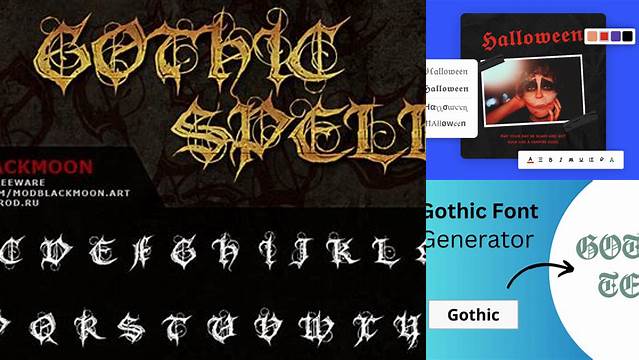
Free Gothic Font Generator: Design Unique Fonts
Are you a fan of the dark, elegant, and mysterious Gothic style? Do you want to add a touch of Gothic flair to your designs, whether it's for your website, logo, invitations, or social media graphics? If so, you've come to the right place! In this article, we'll delve into the world of Gothic font generators, exploring how you can create your own unique Gothic fonts for free. We'll discuss the characteristics of Gothic fonts, the benefits of using a font generator, and the best free Gothic font generators available online. So, get ready to unleash your creativity and design some stunning Gothic fonts!
What are Gothic Fonts?
Before we dive into the world of free font generators, let's first understand what exactly Gothic fonts are. Gothic fonts, also known as blackletter fonts, are a family of typefaces characterized by their distinctive, ornate, and often dramatic appearance. Originating in Europe during the Middle Ages, Gothic fonts were widely used for religious texts, illuminated manuscripts, and formal documents. They exude a sense of history, tradition, and sophistication, making them a popular choice for designs that aim to convey elegance, mystery, or a vintage feel.
Some key characteristics of Gothic fonts include:
- Sharp, angular strokes: Gothic fonts feature sharp, angular letterforms with strong contrasts between thick and thin strokes.
- Elaborate ornamentation: Many Gothic fonts incorporate intricate details and flourishes, adding to their ornate and decorative aesthetic.
- Tall, narrow letterforms: Gothic letters tend to be tall and narrow, creating a sense of verticality and formality.
- Blackletter appearance: The term "blackletter" refers to the dense, dark appearance of Gothic fonts, which is due to the close spacing and heavy strokes of the letterforms.
Gothic fonts come in various styles, ranging from the classic Textura and Rotunda to the more modern and stylized variations. Whether you're looking for a traditional Gothic font for a historical project or a contemporary Gothic font for a cutting-edge design, there's a Gothic font out there to suit your needs.
Why Use a Free Font Generator?
Now that we have a good understanding of what Gothic fonts are, let's discuss why you might want to use a free font generator to create your own. There are several compelling reasons to consider this approach:
- Uniqueness: With a font generator, you can create fonts that are truly one-of-a-kind. You're not limited to the pre-existing fonts available in font libraries. You can experiment with different styles, weights, and embellishments to craft a font that perfectly reflects your vision.
- Customization: Font generators offer a high degree of customization. You can tweak every aspect of your font, from the letterforms and spacing to the serifs and swashes. This level of control allows you to create fonts that are tailored to your specific design needs.
- Cost-effectiveness: Hiring a professional font designer can be expensive. Free font generators provide a cost-effective alternative, allowing you to create high-quality fonts without breaking the bank. This is especially beneficial for personal projects or small businesses with limited budgets.
- Creativity: The process of designing your own fonts can be incredibly rewarding and creatively stimulating. It allows you to explore your artistic side and develop a deeper understanding of typography. Font generators provide a user-friendly platform for experimenting with different design ideas and bringing your font visions to life.
- Availability: Free Gothic font generators are readily available online. There are numerous websites and software programs that offer font generation capabilities, making it easy to find a tool that suits your needs and skill level.
Top Free Gothic Font Generators
Ready to start creating your own Gothic fonts? Here are some of the best free Gothic font generators available online:
Calligraphr: Calligraphr is a web-based font generator that allows you to create fonts from your own handwriting or drawings. Simply download a template, fill it in with your letterforms, and upload it to Calligraphr. The tool will then generate a font based on your input. Calligraphr is a great option if you want to create a font with a personal touch. Guys, this tool is awesome because you can literally turn your handwriting into a font! How cool is that?
FontStruct: FontStruct is a free, browser-based font editor that allows you to create fonts using geometric shapes. It's a unique and powerful tool that's perfect for designing display fonts, logos, and other graphic elements. FontStruct has a vibrant community of users who share their fonts and offer feedback, making it a great place to learn and get inspired.